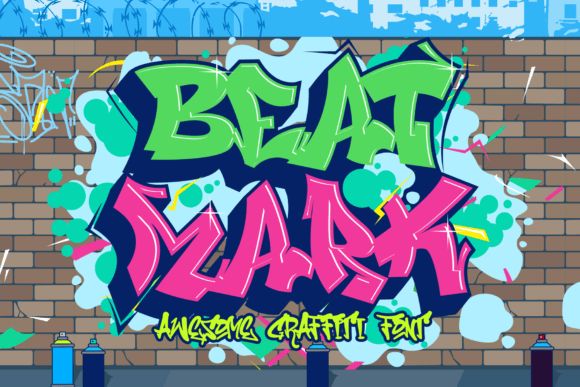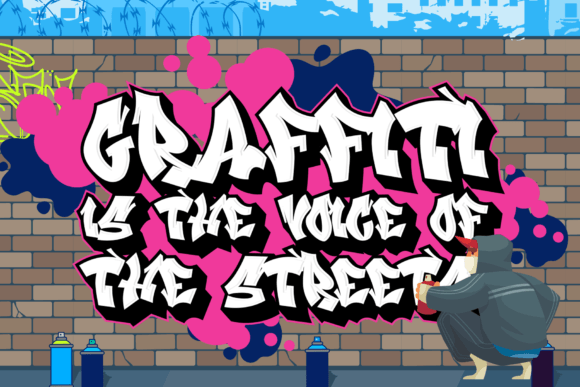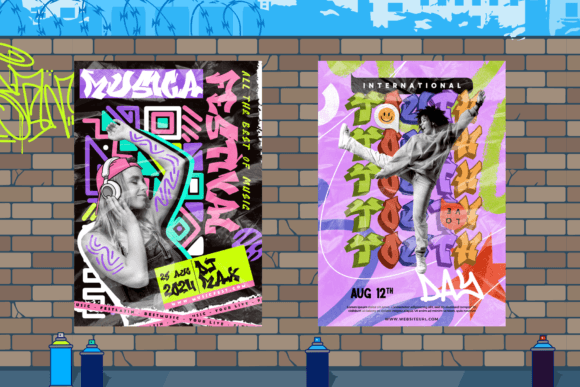
Beat Mark Font
Dive into the world of urban artistry with Beat Mark, a remarkable graffiti font featuring bold, dynamic, and edgy lettering that captures the raw heart of street aesthetics. This typeface injects the bona fide, gritty ethos of street culture into your projects, transforming ordinary designs into extraordinary art. Its audacious style sparks creativity across a diverse range of applications including clothing, posters, social media graphics, and streetwear branding.Beyond its eye-catching appeal, Beat Mark brings a potent visual impact, making your designs echo with the spirited energy inherent in graffiti art. It’s the go-to choice when a project imbued with the essence of graffiti is at stake, or when you simply want to infuse conventional work with an edgy, street-style twist. Get a pulse on the unconventional with Beat Mark, a font that robustly embodies the vibrant lifeblood of the streets.